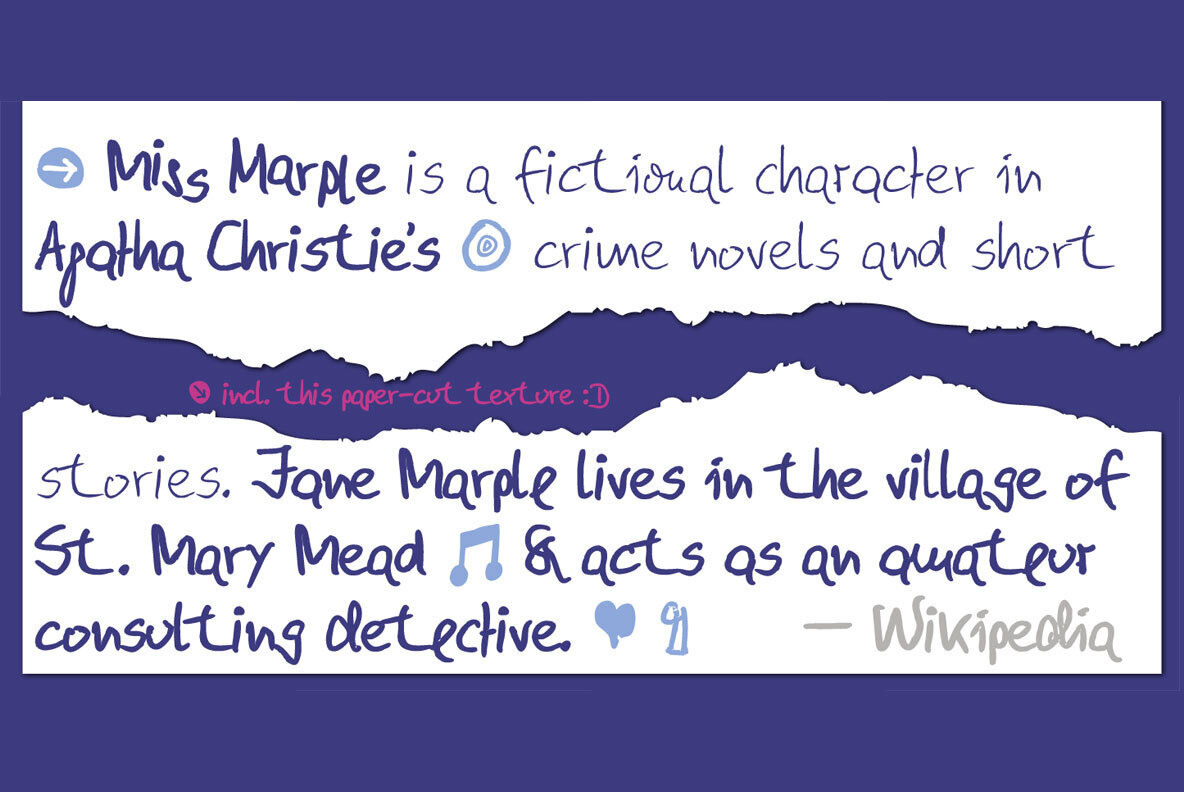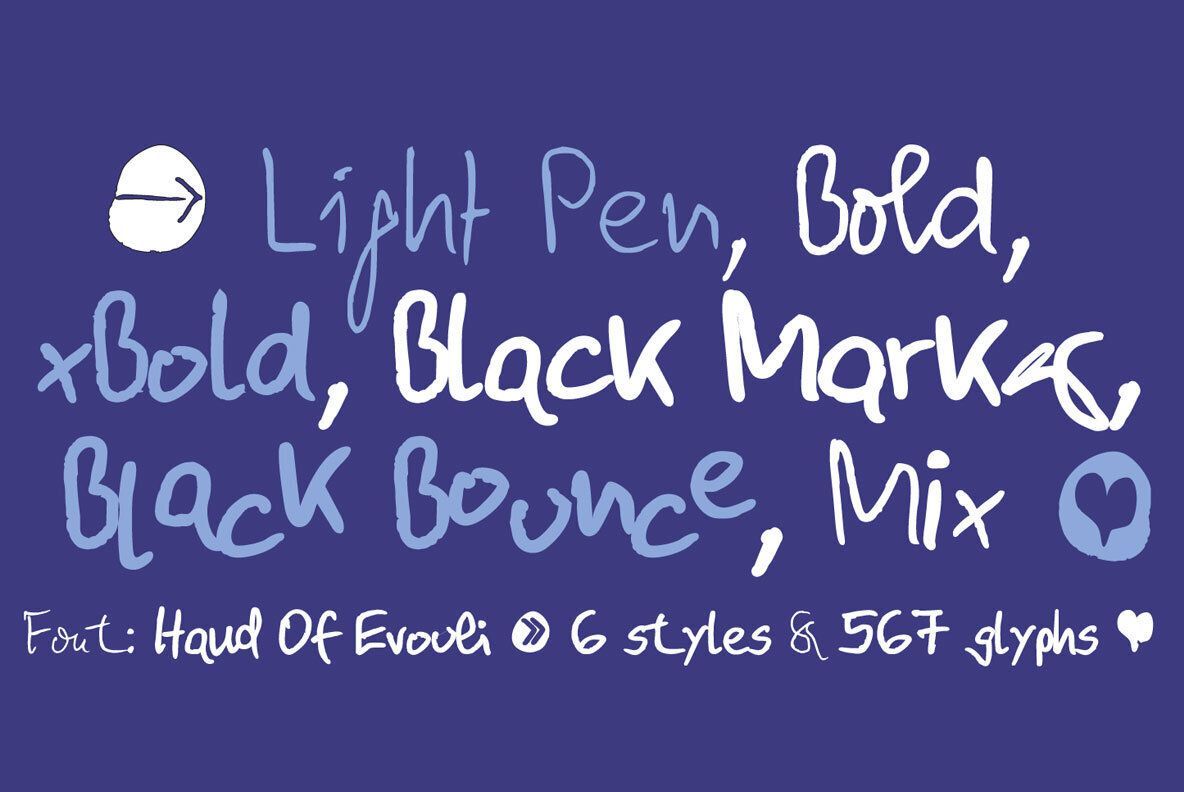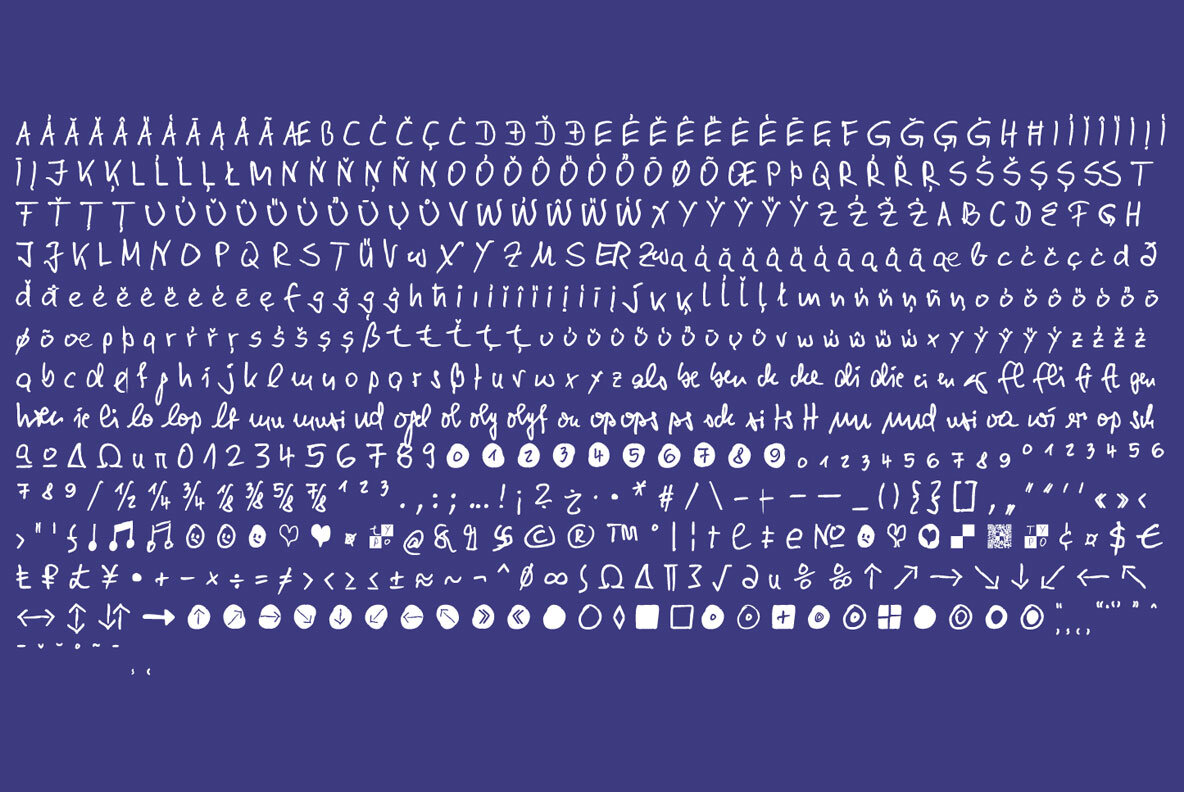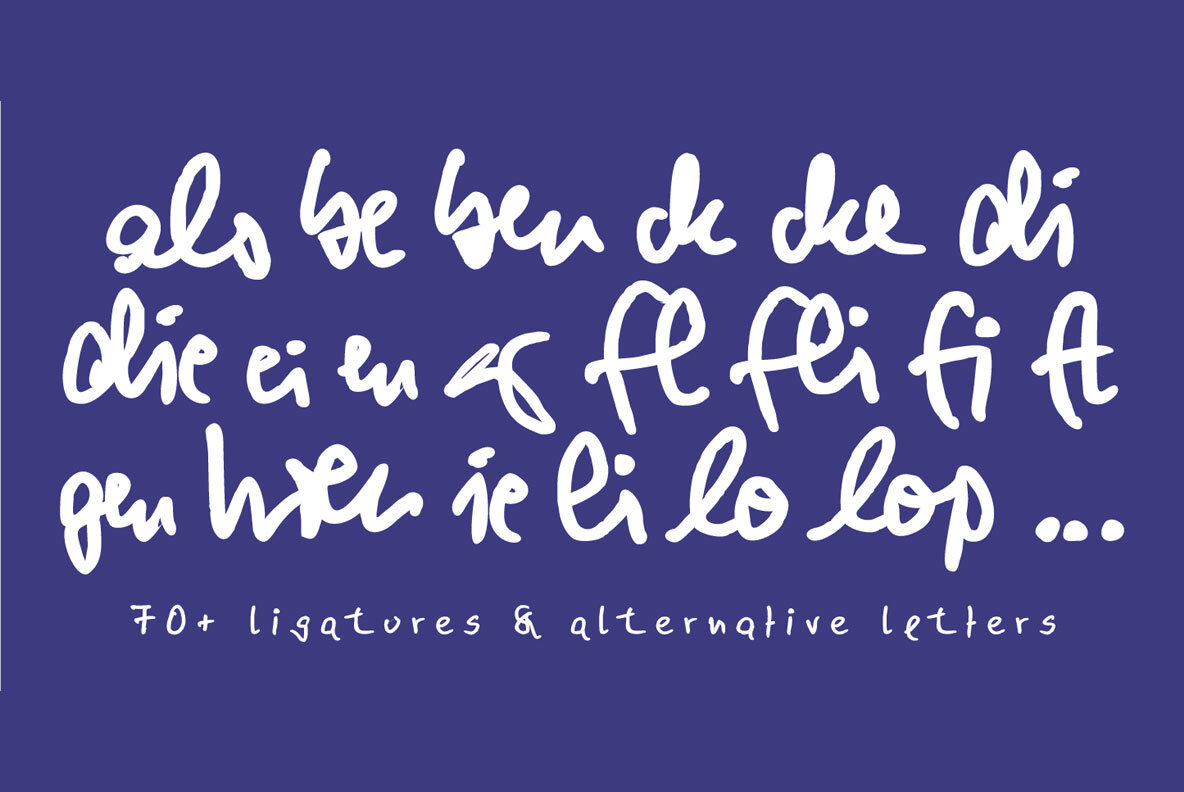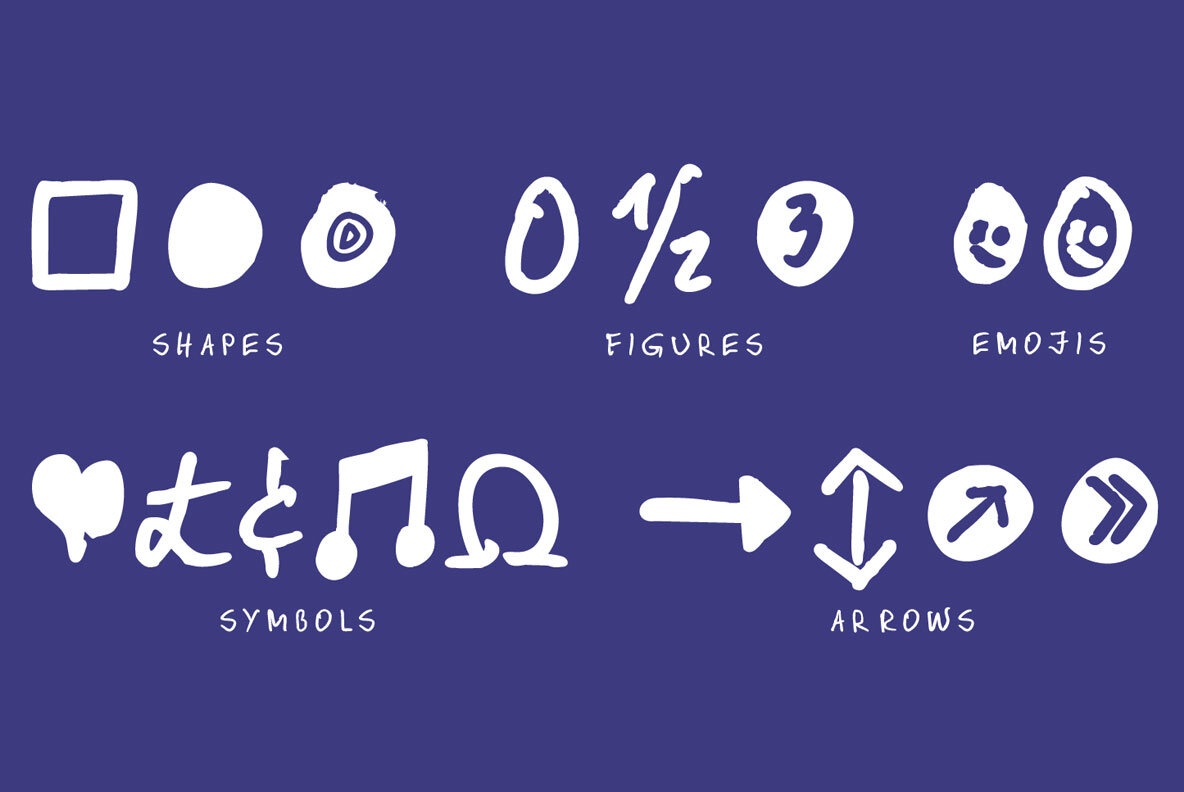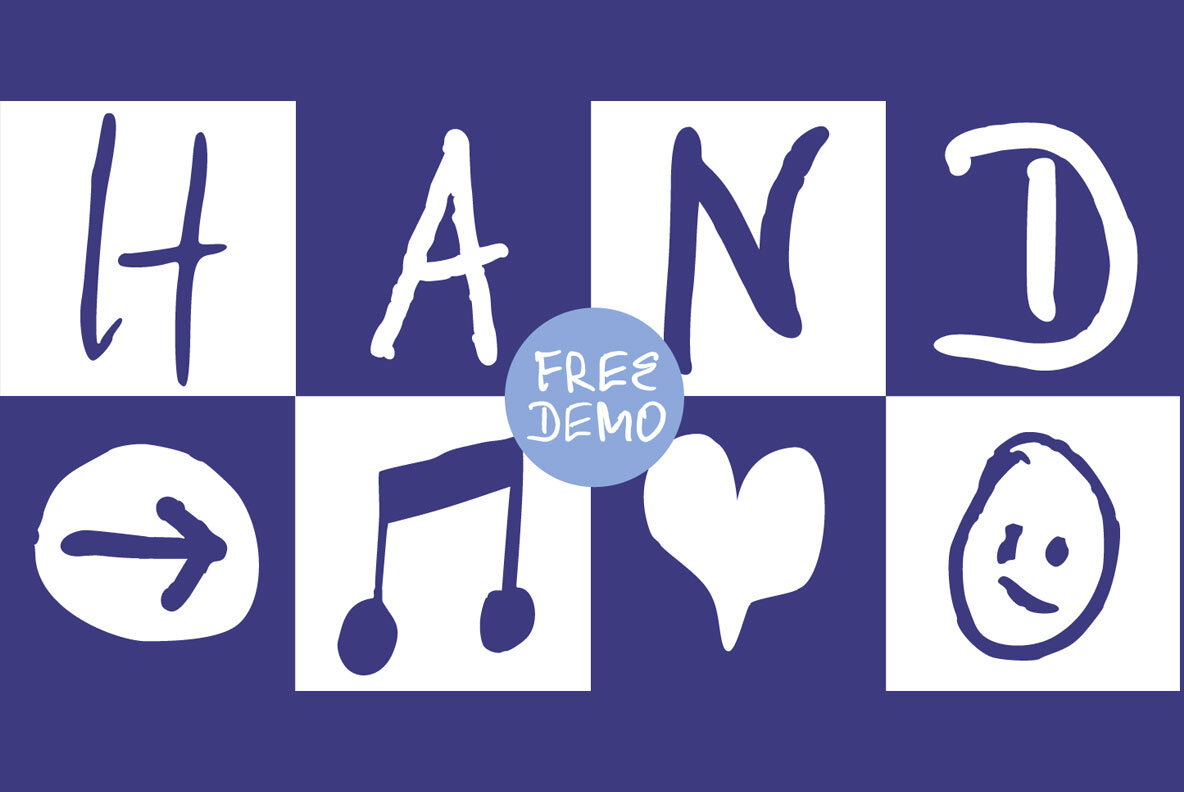
Hand Of Evouli Font
The typeface Hand Of Evouli is designed from 2022 for the font foundry Typo Graphic Design by Manuel Viergutz.
6 font-styles (Light Pen, Bold, xBold, Black Marker, Black Bounce, Mix) + 1 icon-style with 567 glyphs (Adobe Latin 3) incl. 100+ decorative extras like icons, arrows, dingbats, emojis, symbols, geometric shapes (type the word #LOVE for or #SMILE for as OpenType-Feature dlig) and stylistic alternates (4 stylistic sets).
For use in logos, magazines, posters, advertisement plus as webfont for decorative headlines. The font works best for display size.
■ Font Name: Hand Of Evouli
■ Font Styles: 6 font styles (Light Pen, Bold, xBold, Black Marker, Black Bounce, Mix) + DEMO (with reduced glyph-set)
■ Font Category: Display Script for headline size
■ Glyph Set: 567 glyphs (Latin 3 incl. decorative extras like icons)
■ Design Date: 2022
■ Type Designer: Evouli & Manuel Viergutz